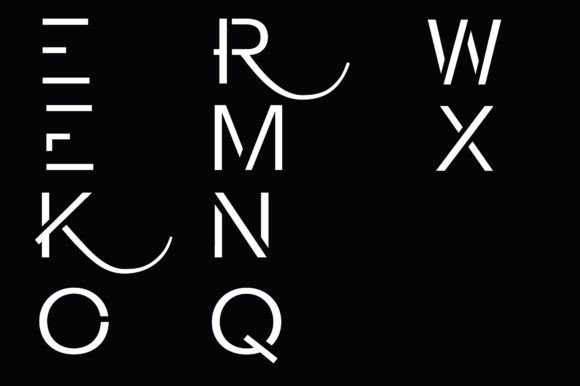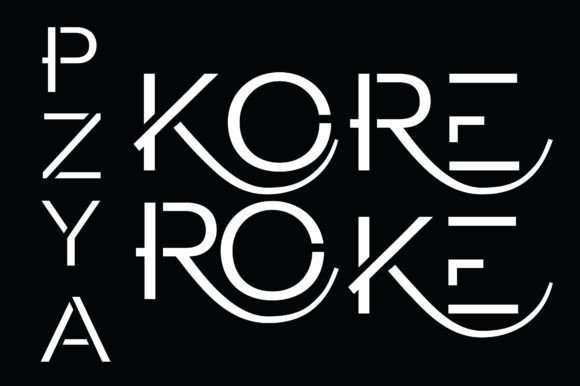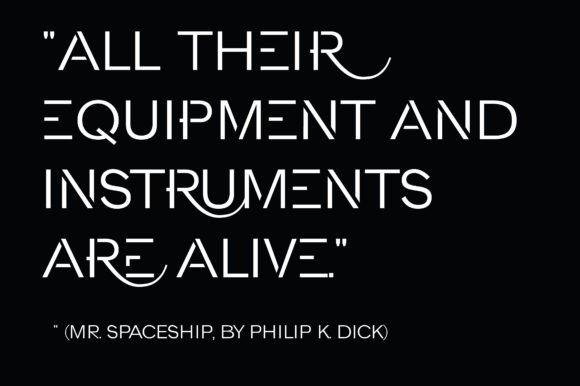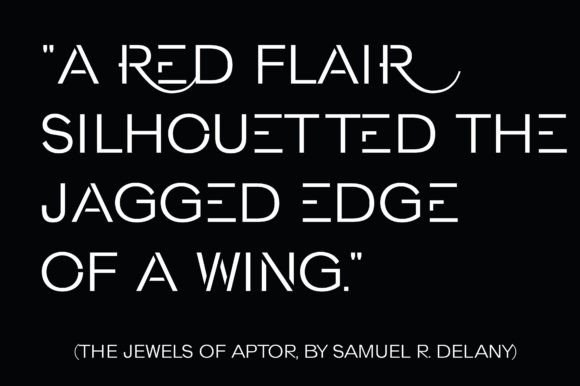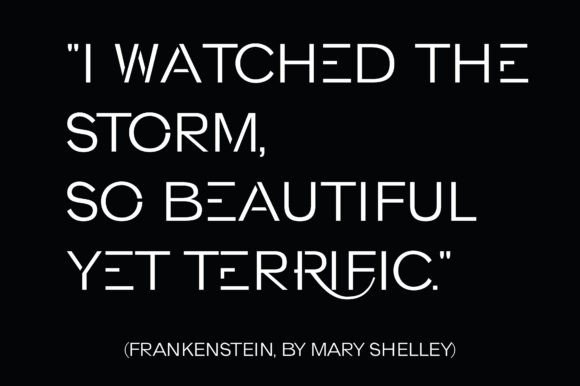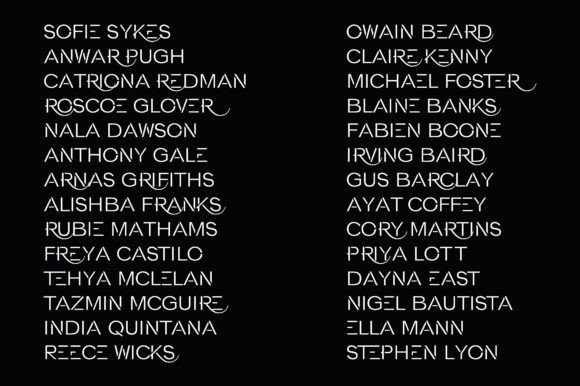
Introduction to Rovek Font
Rovek is a minimalist revolutionary sans-serif typeface.
This typeface is very versatile because it combines the classical grotesque aspect with some modern alternative letters, stylistic alts, and ligatures to enrich your creative ideas as much as possible Use it in your creation and notice how it take them to next level.
Key Features of Rovek Font